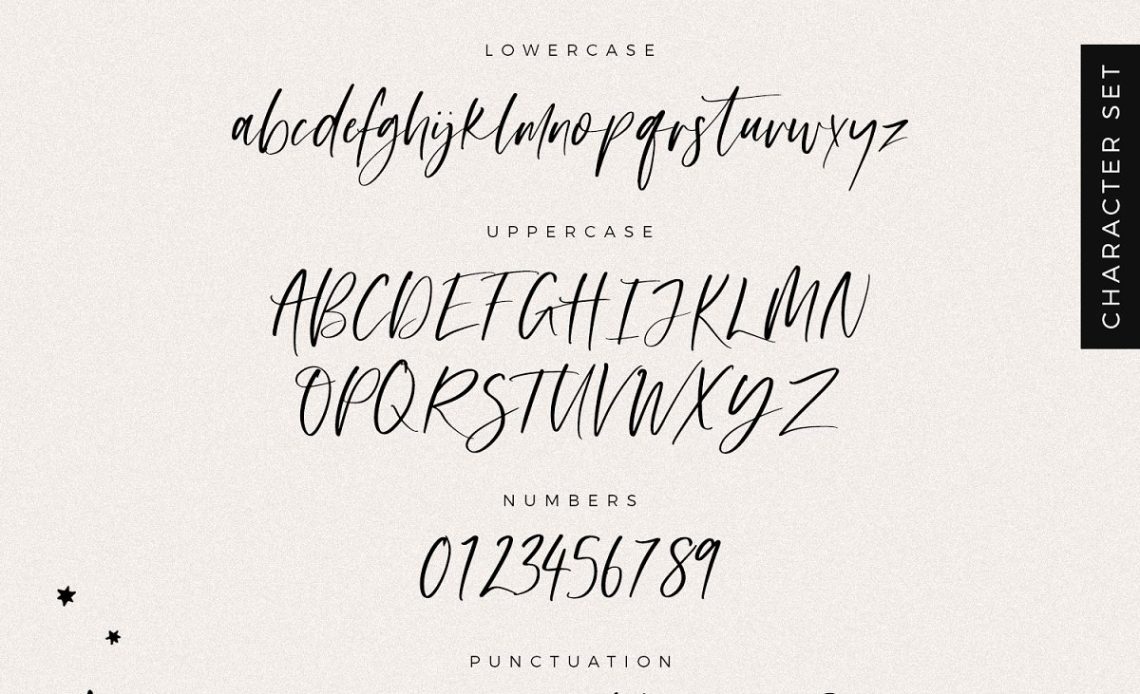
Introducing Dreamland Script Font, a captivating and magical addition to your font collection. Crafted by the talented designers at Blog Pixie, this stylish handwritten font is perfect for adding a touch of elegance and whimsy to your projects.
With its enchanting flair, Dreamland script font is a versatile choice for a wide range of applications. Whether you're creating quotes, invitations, stationery, print designs, logos, magazines, eBooks, or anything in between, this font will effortlessly elevate your creations to a whole new level.
What sets Dreamland script font apart is its ability to evoke emotions and capture attention. Its flowing and organic strokes create a sense of warmth and personality that draws viewers in. With this font, your words will come alive and leave a lasting impression on anyone who reads them.
Transform your projects into captivating works of art with Dreamland script font. Experience the magic today!